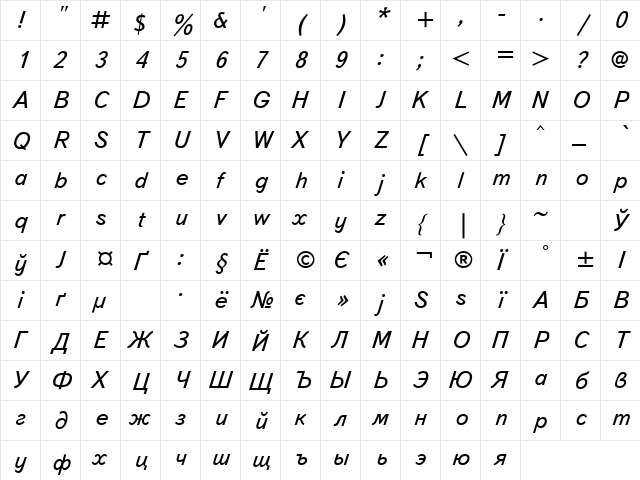
TextBook Italic Cyrillic
Design Context for TextBook Typeface
TextBook is a composed and adaptable typeface that performs quietly and consistently across a wide range of design contexts. The slanted form adds forward momentum and visual energy.
Pro Tip: Try TextBook for annotation and caption copy alongside an upright companion — the contrast in angle creates a dynamic but ordered typographic system.